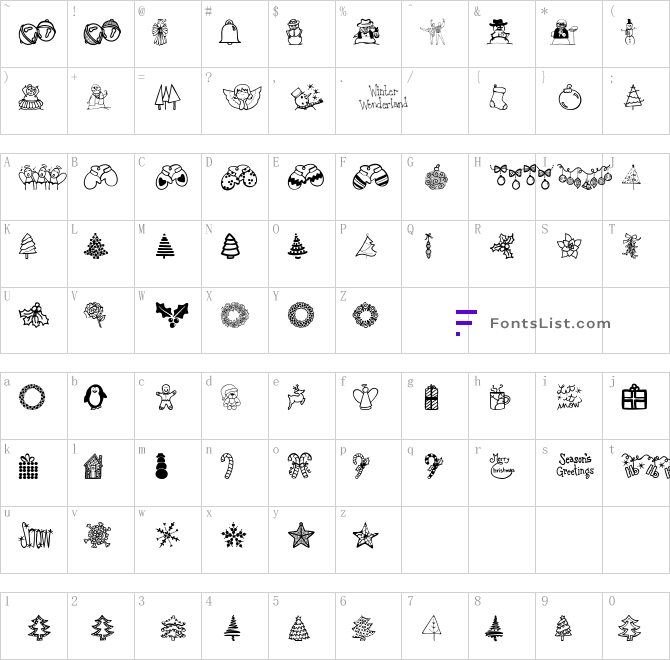
- Font Name:Austie Bost Christmas Doodles
Austie-Bost-Christmas-Doodles-copy-1-.ttf is a very beautiful artistic font, Austie-Bost-Christmas-Doodles-copy-1-.ttf is widely used in the design and printing of various books and pictures,Austie-Bost-Christmas-Doodles-copy-1-.ttf has a strong visual impact,Austie-Bost-Christmas-Doodles-copy-1-.ttf is a commonly used font in newspapers, magazines and books, and is used in posters, e-commerce Poster design, store design, logo design, font design and other fields.Austie-Bost-Christmas-Doodles-copy-1-.